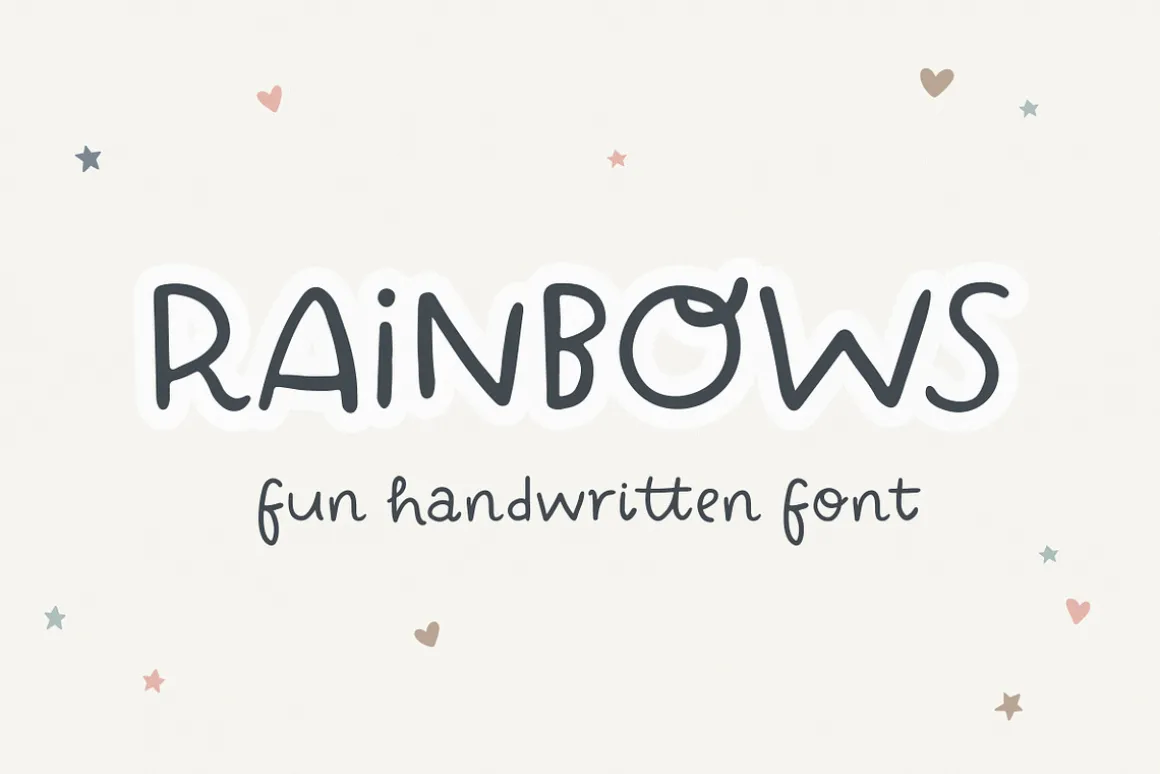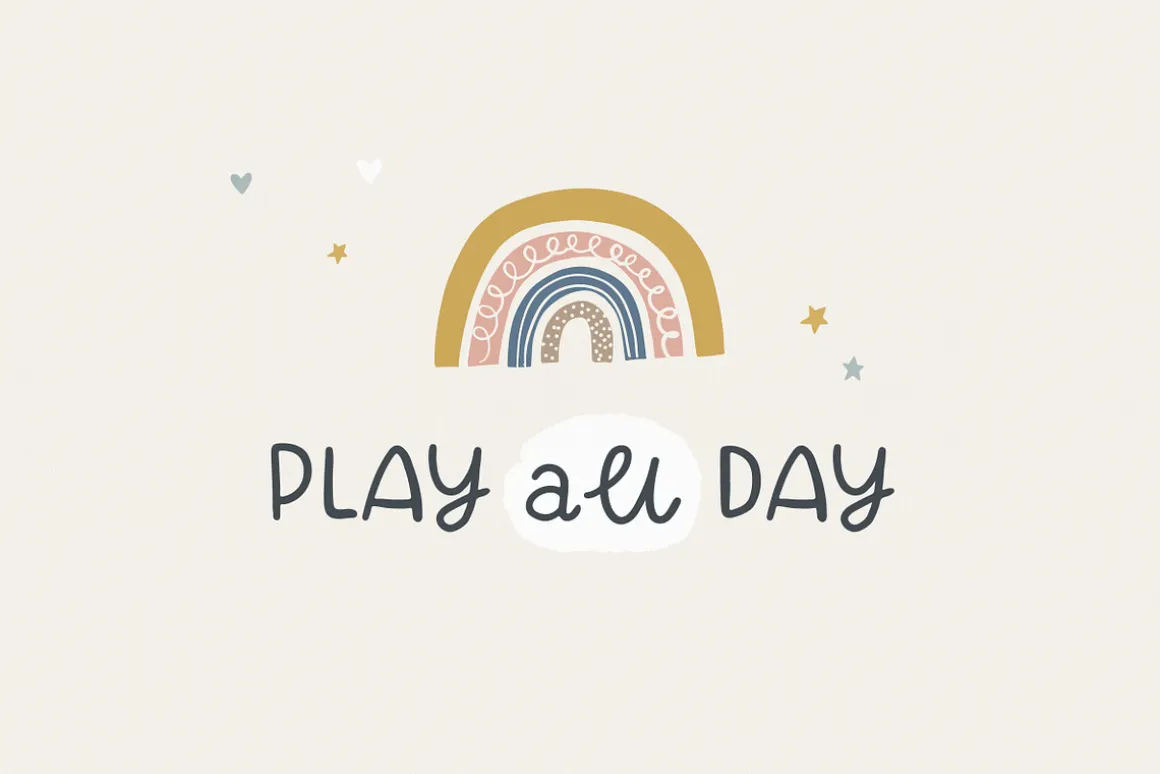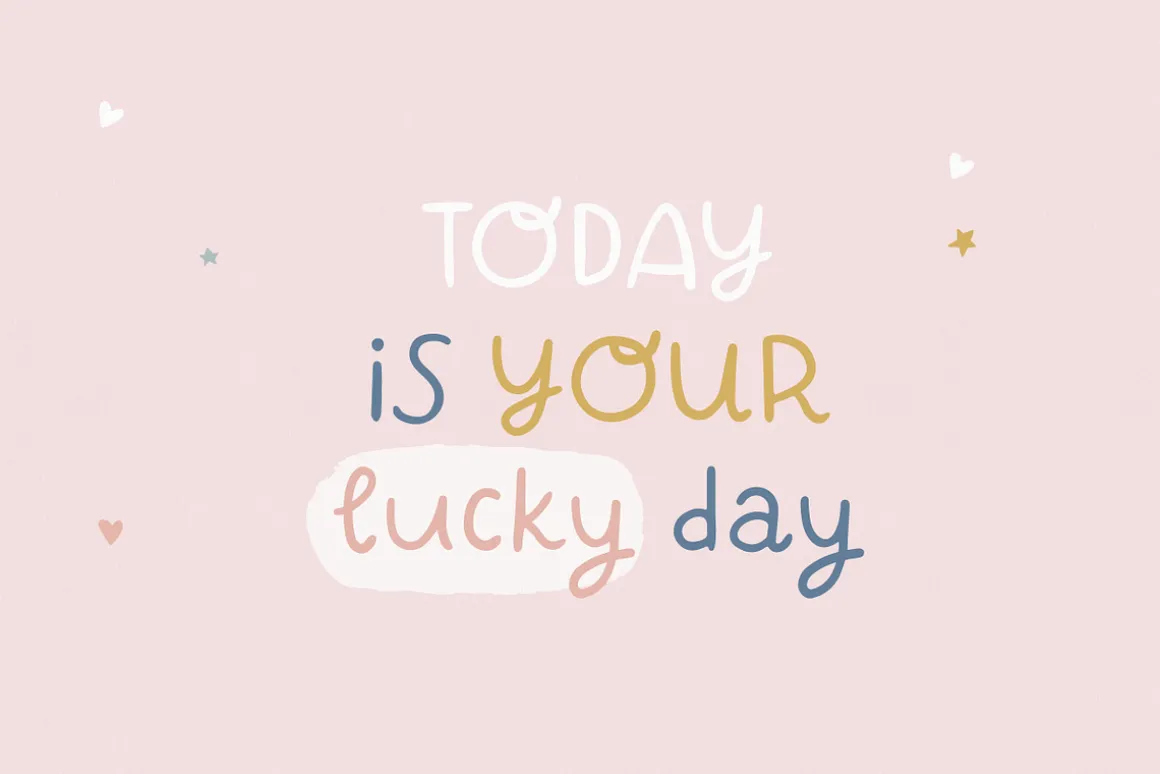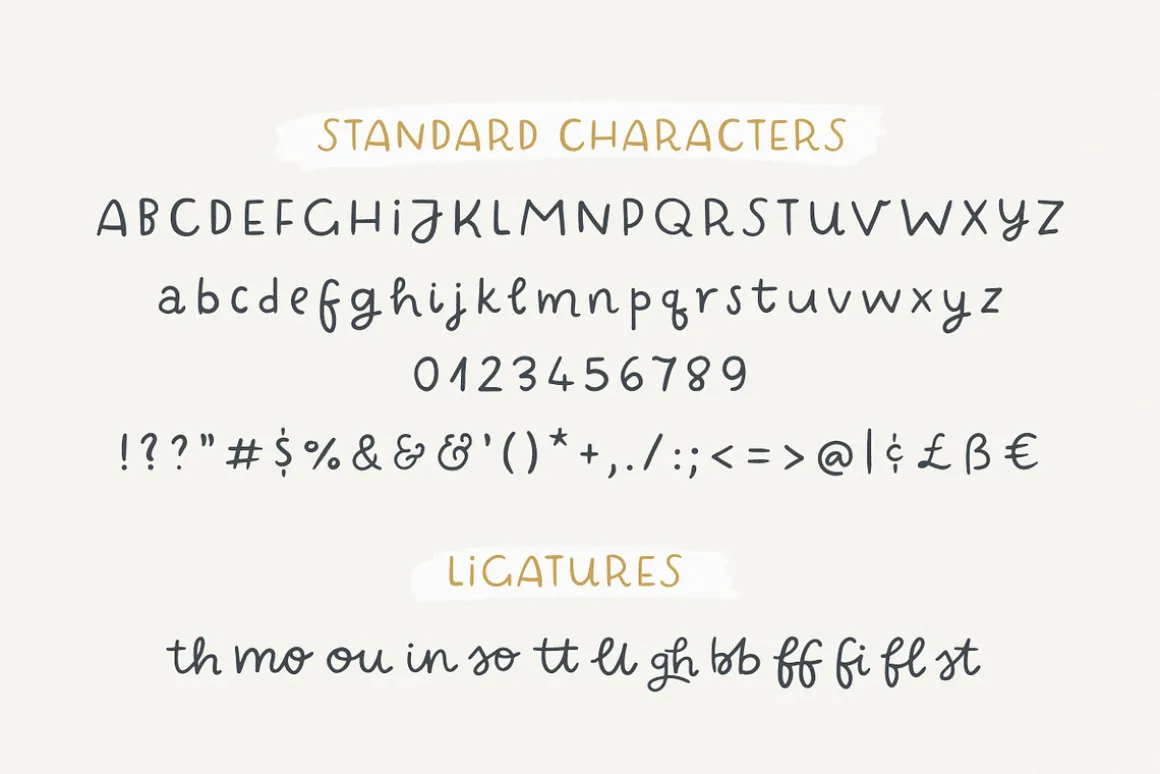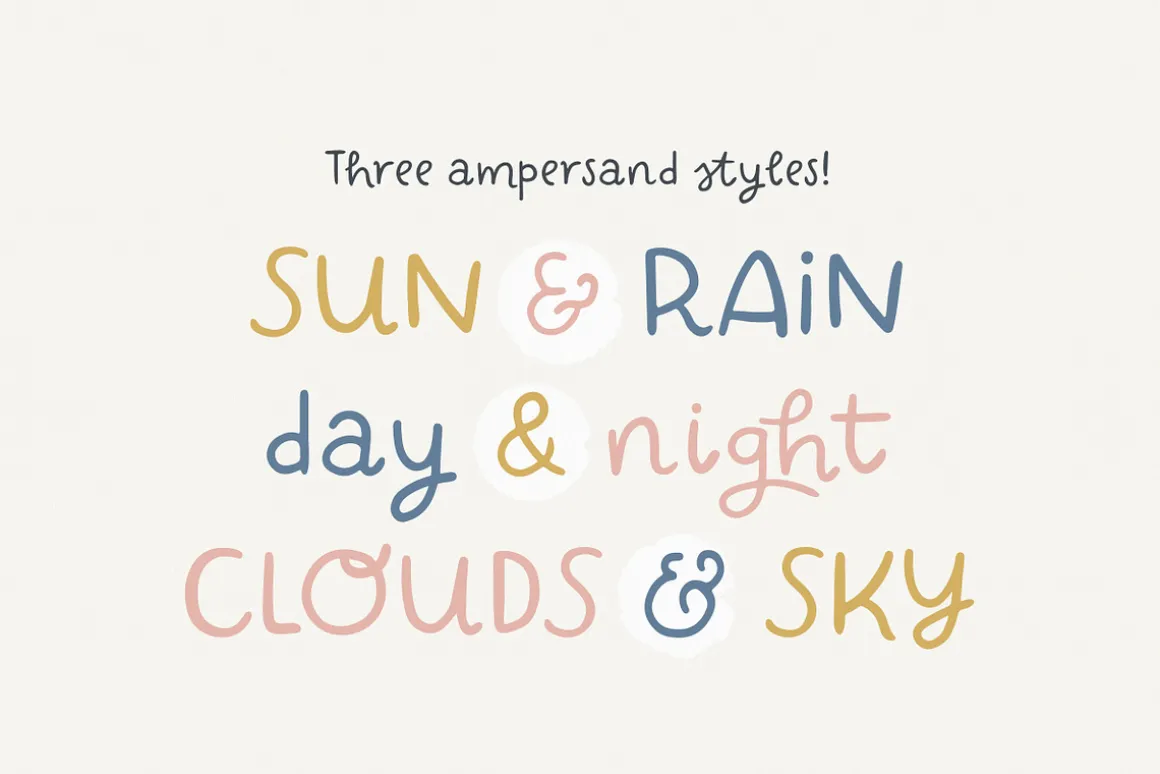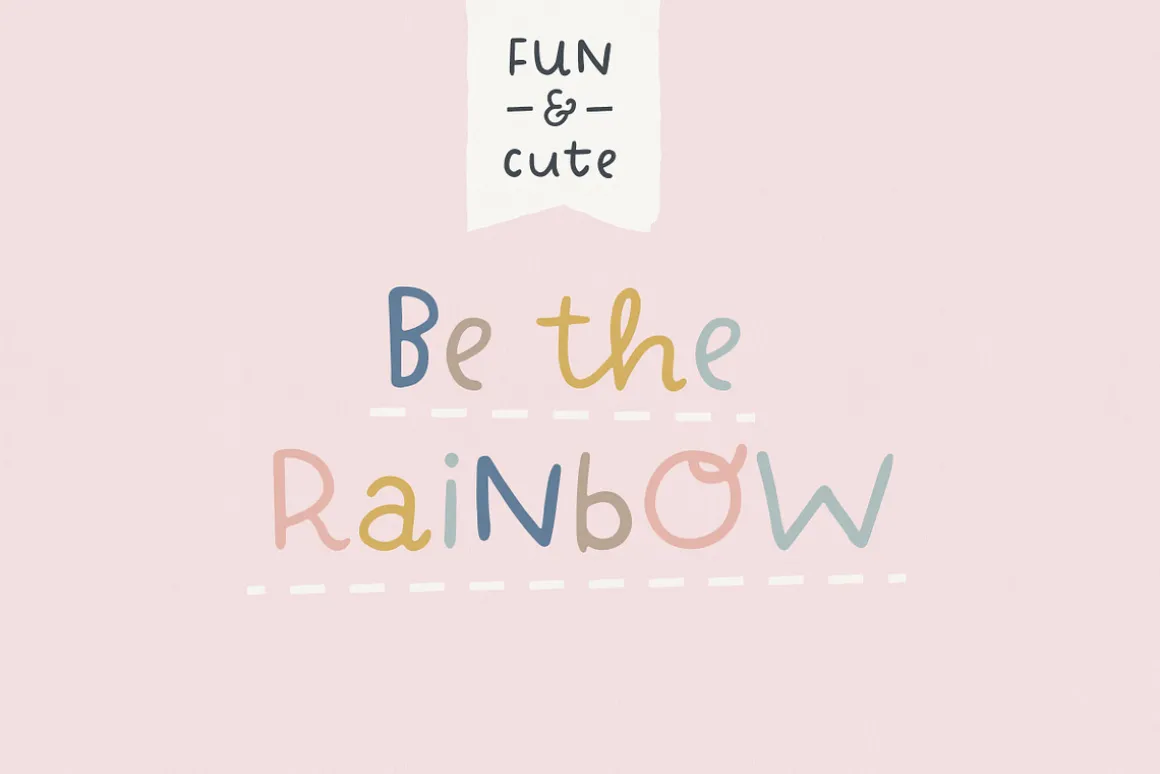
Introducing Rainbows – cute & playful display font
Perfect for writing out uplifting quotes for instagram posts, wall art, crafting, greeting cards, branding… you name it! Designed and kerned with care and love to make using it a breeze.
OTF file is packed with lovely features:
- ligatures to give the text a truly handwritten look
- fun stylistic alternates for the ampersand